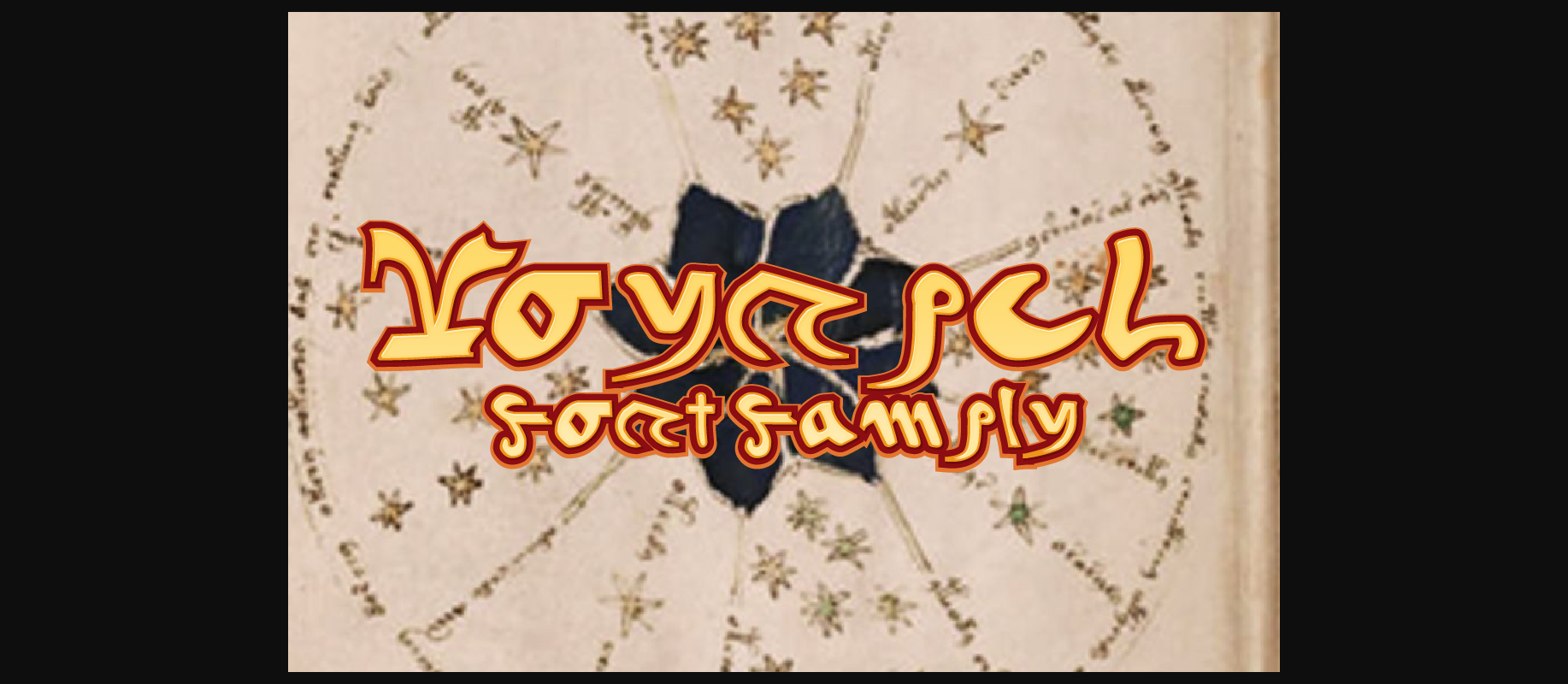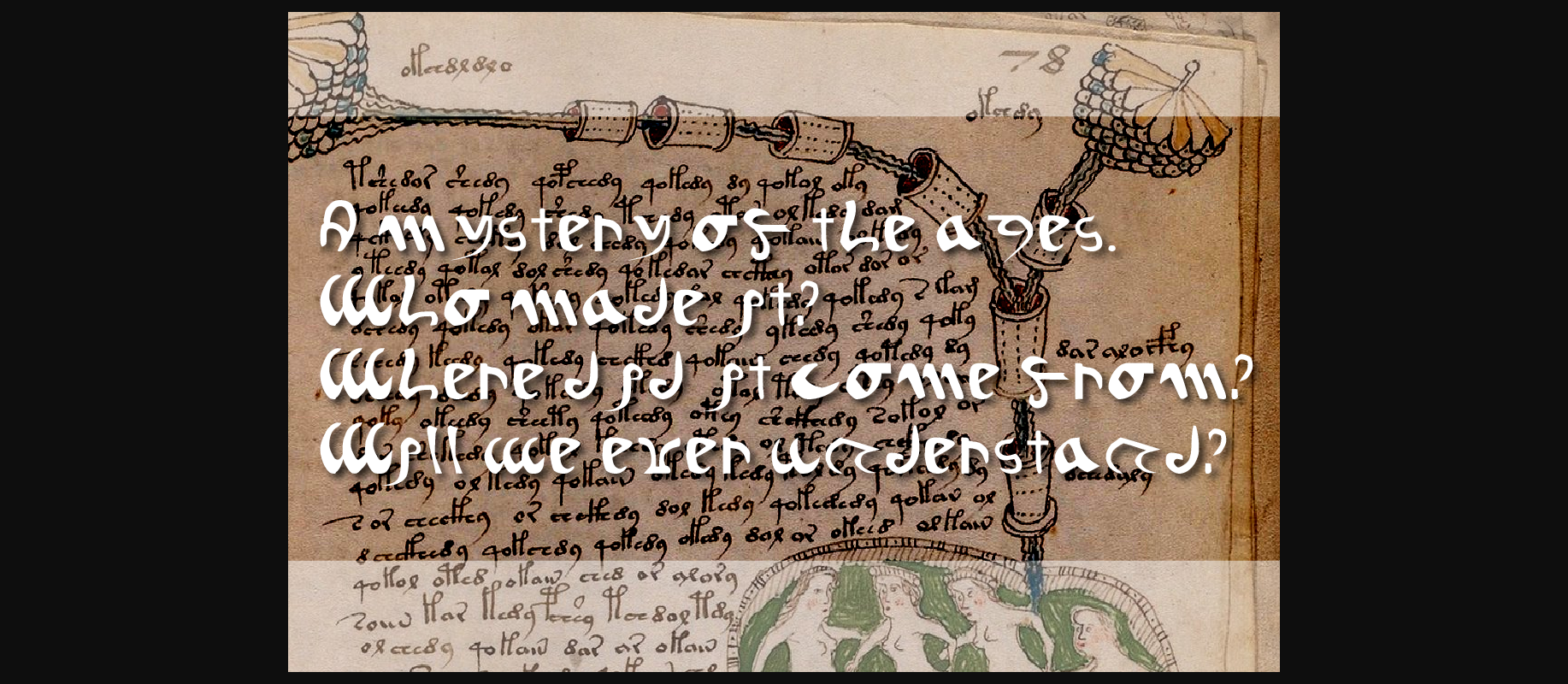
About Voynich Family Font
Voynich is an eerie, alien font based on the mysterious tome known as the Voynich manuscript.
Voynich comes in four font styles: regular, hollow and etched.